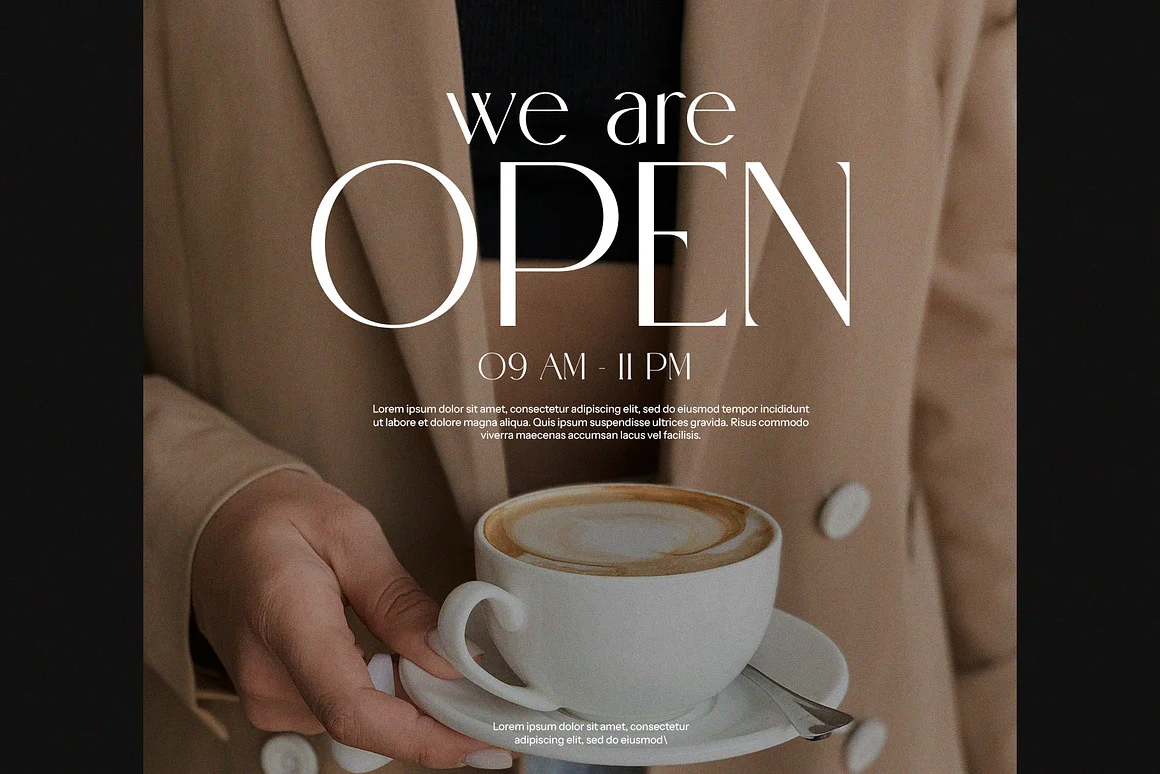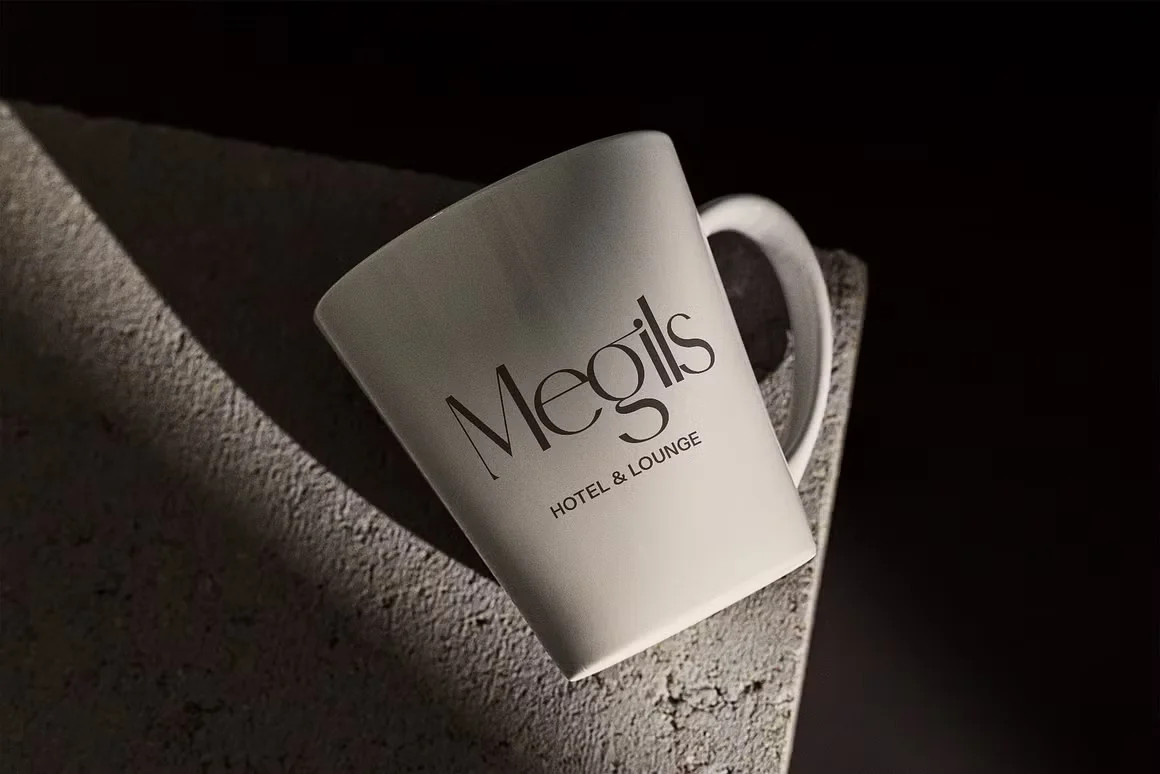
Gimile Modern Sans Serif Font
Gimile Modern Sans Serif offers a fresh typographic approach that balances visual appeal with exceptional legibility.
Its proportions suit a wide range of uses: website headers, printed flyers, restaurant menus, annual reports, and product packaging.